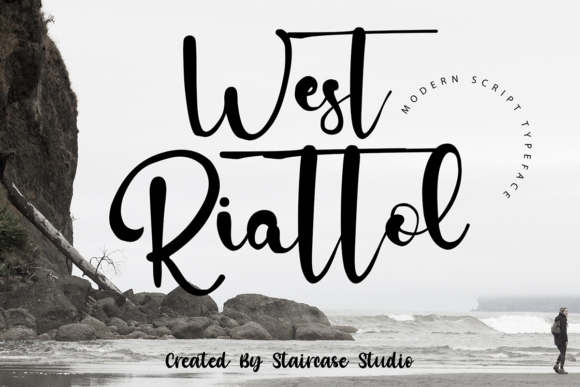
Step into the realm of elegance and charm with West Riattol, a captivating script font family that will transform your designs into masterpieces. Each letter, meticulously crafted by the skilled hands of staircasestudio20, exudes grace and fluidity, reflecting the beauty of handwritten strokes. Unleash your creativity and embark on a typographic journey that will leave a lasting impression.
As a modern signature typeface, West Riattol is the perfect choice for adding a touch of sophistication to your projects. Its versatility extends from logotypes and branding designs to logo designs and digital lettering arts. Whether you're crafting t-shirts, apparel, posters, magazines, or signage, West Riattol's enchanting aura will elevate your designs to new heights.
Immerse yourself in the world of West Riattol and discover a font family that embodies elegance, charm, and limitless possibilities. Let your imagination soar as you explore the diverse applications of this font, transforming your creative visions into reality. Indulge in the beauty of West Riattol and witness the transformation of your designs into works of art.